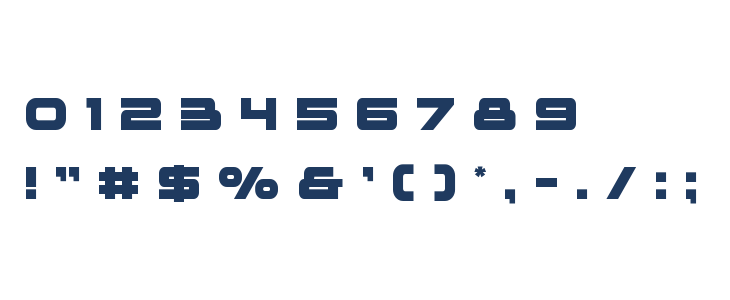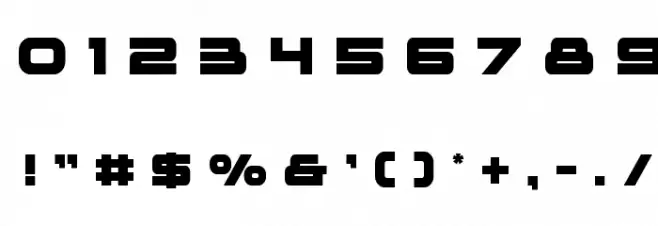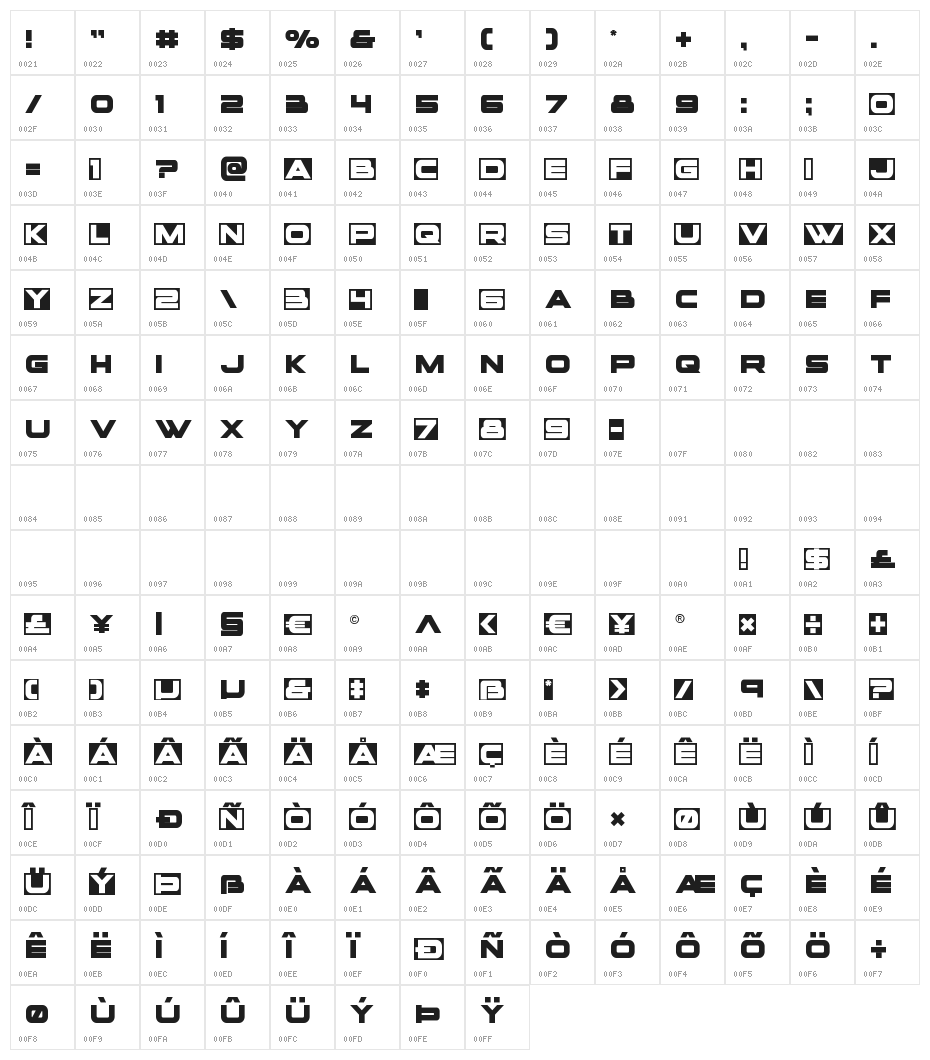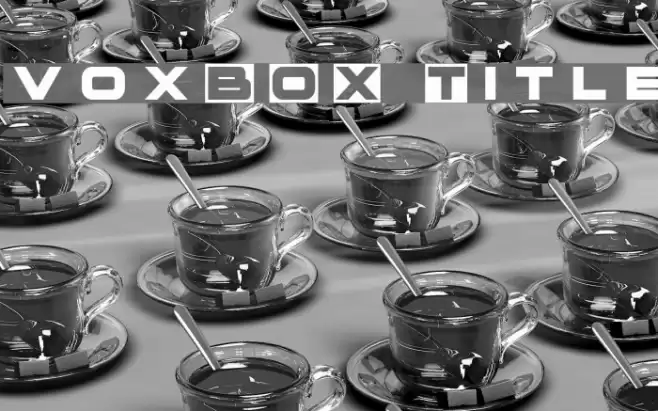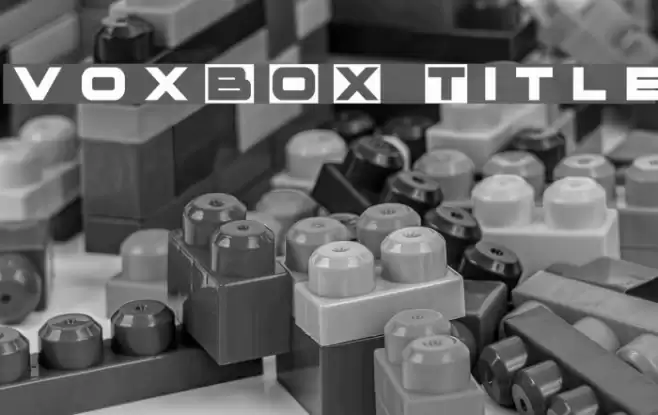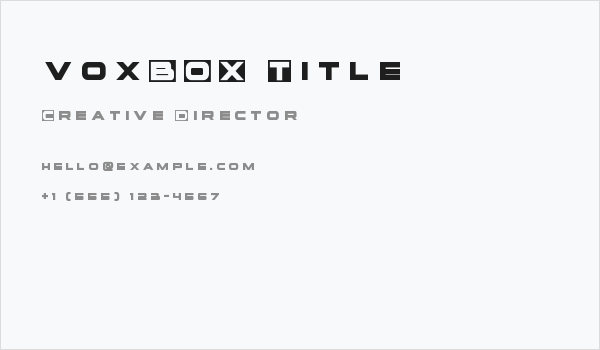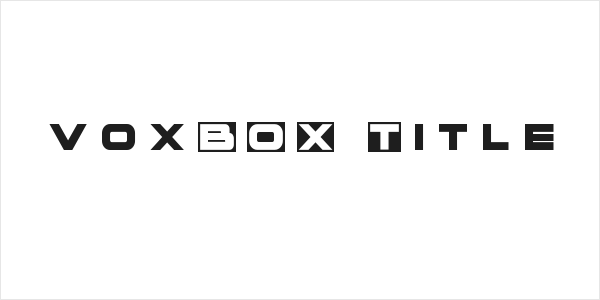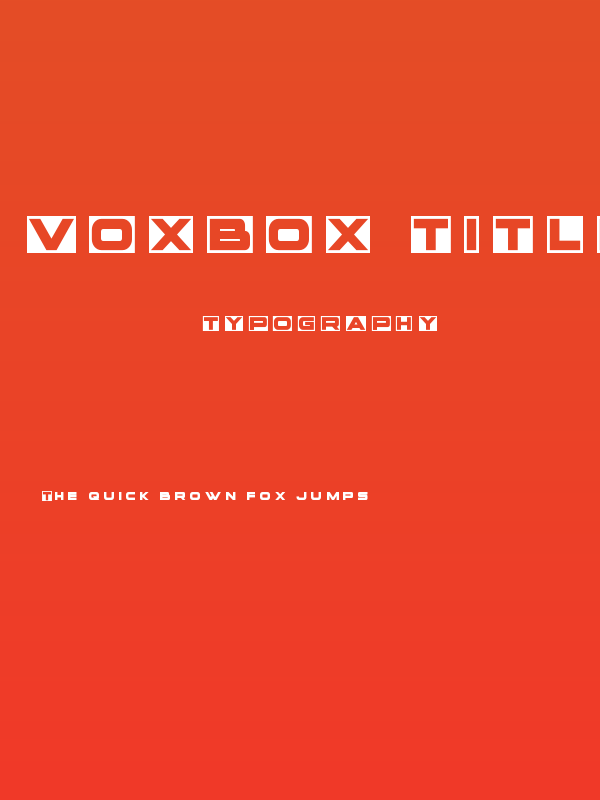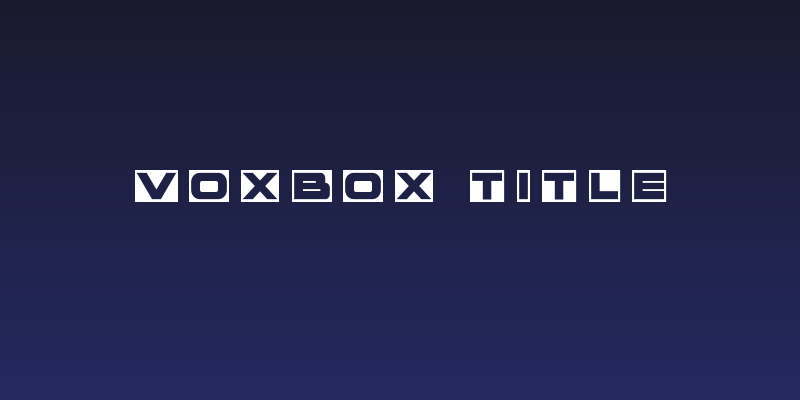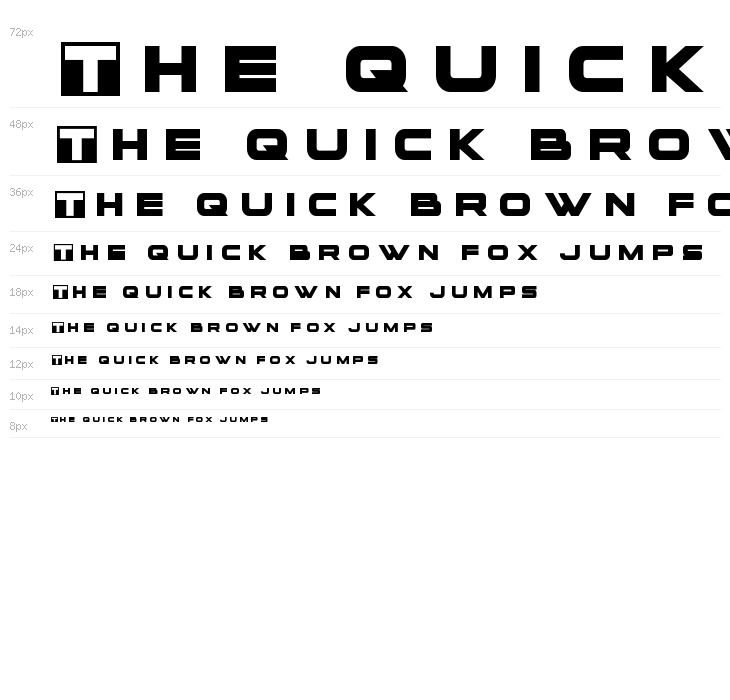
voxBOX Title Font
voxBOX Title Description
This font features a bold, geometric design with a strong presence. The uppercase letters are enclosed in square blocks, creating a striking and modern appearance. The lowercase letters maintain a consistent style, with clean lines and a uniform weight. The numerals are bold and easily readable, matching the overall aesthetic. Special characters are included, each designed to complement the font's bold and structured look. This font is ideal for projects that require a modern and impactful visual statement.
| Proposed Projects | Ideal for branding, posters, headlines, and any design requiring a strong visual impact. |